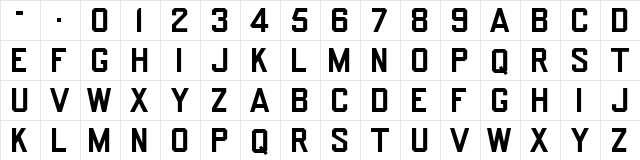
RemcoBlock XPDF Regular Font Preview
RemcoBlock XPDF Regular
RemcoBlock XPDF Regular Font Details
Design Context for RemcoBlock XPDF Typeface
RemcoBlock XPDF is a composed and adaptable typeface that performs quietly and consistently across a wide range of design contexts.